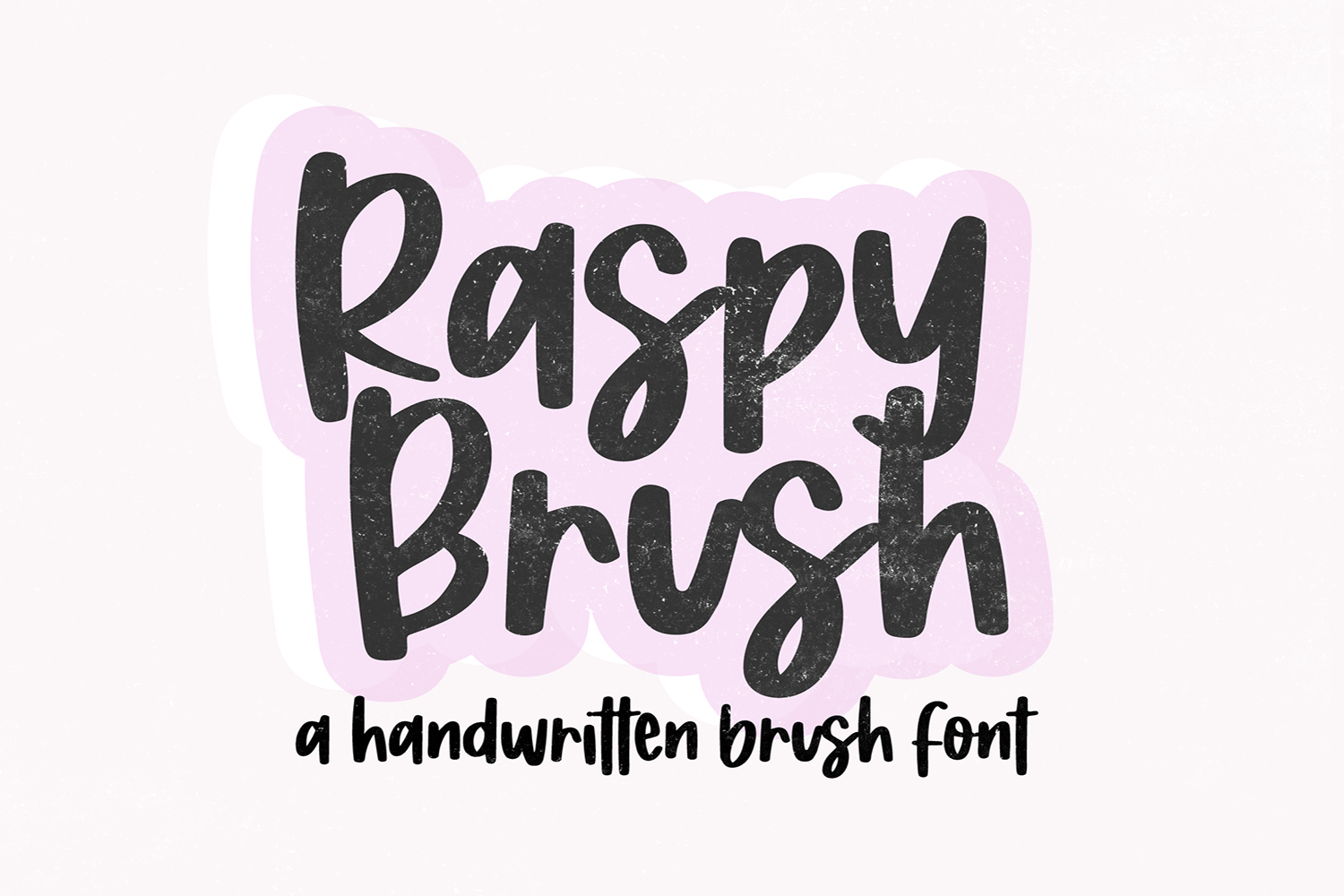
"Raspy Brush" bold brush font.
This font is a cute bold brush font that is perfect for social media or crafty projects. Use if for branding, crafts for decor, invitations, and more! This font includes upper and lowercase glyphs, numbers, and basic punctuation marks.